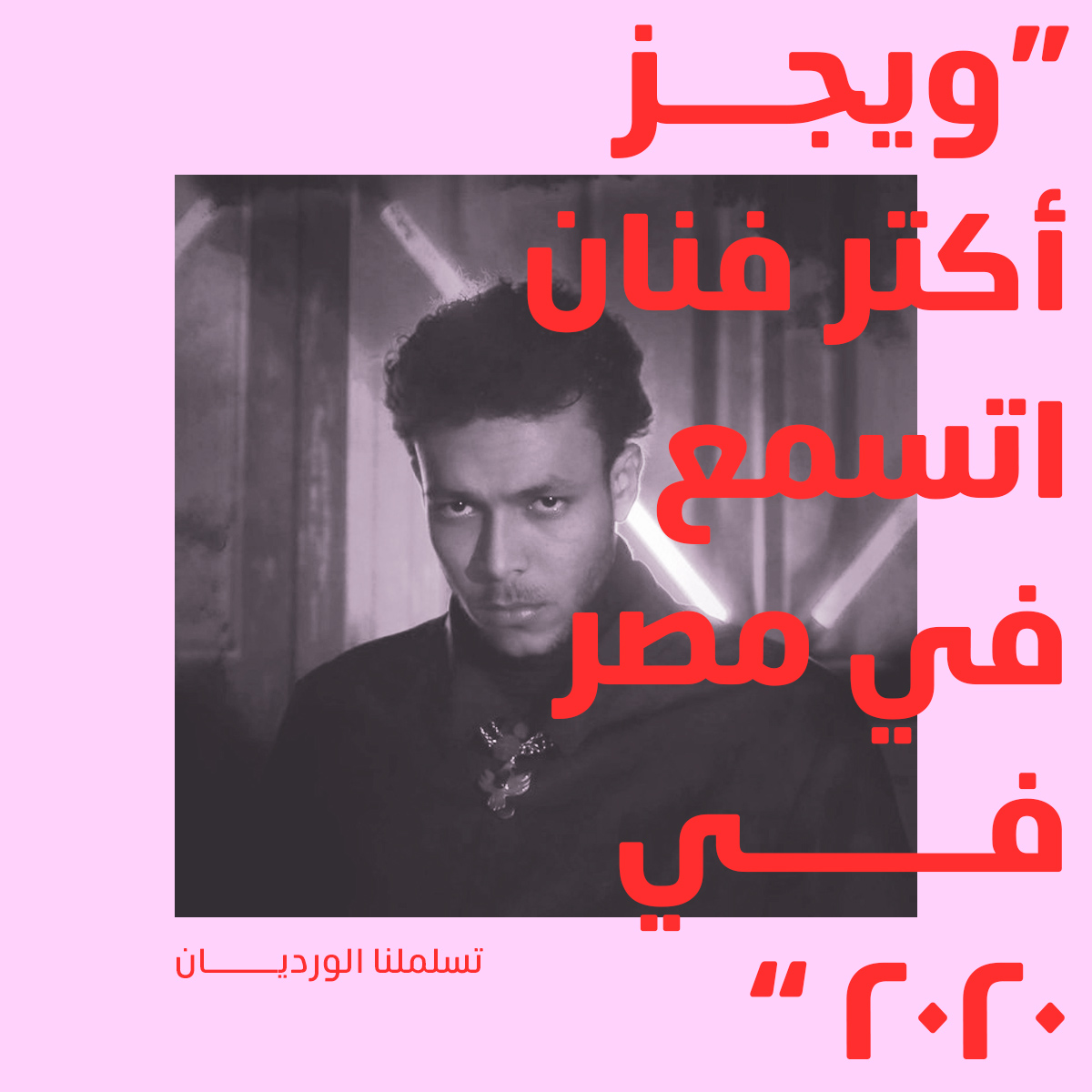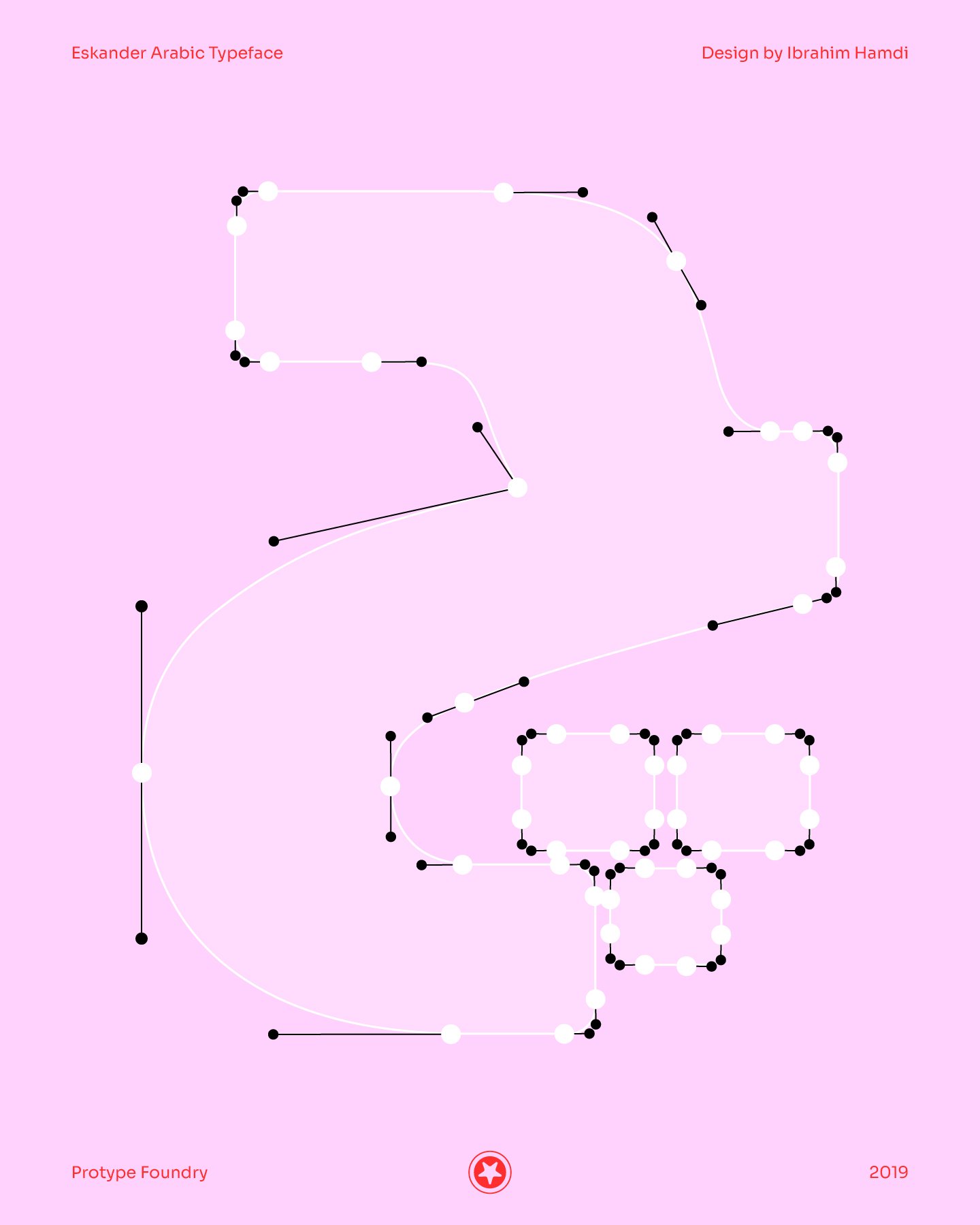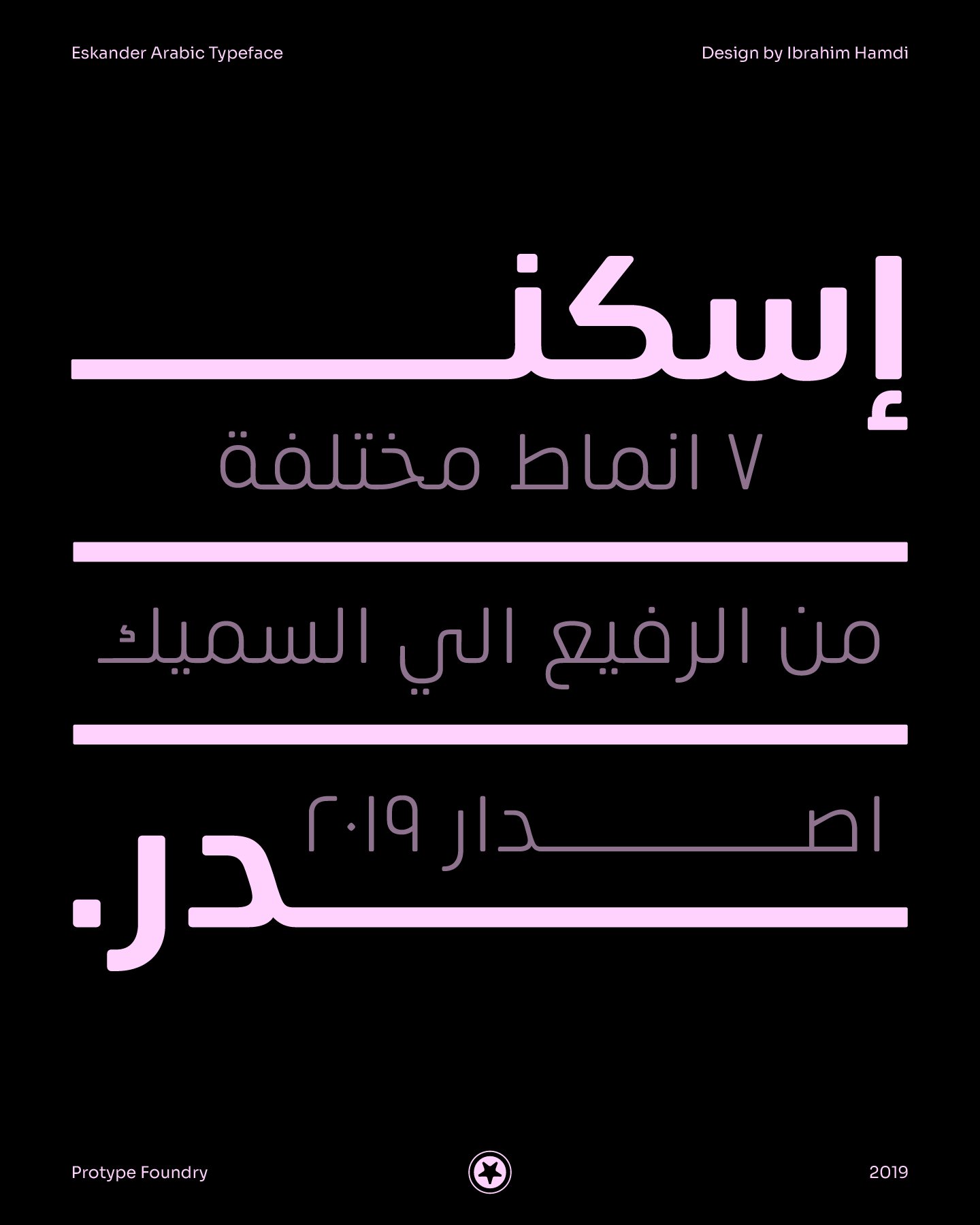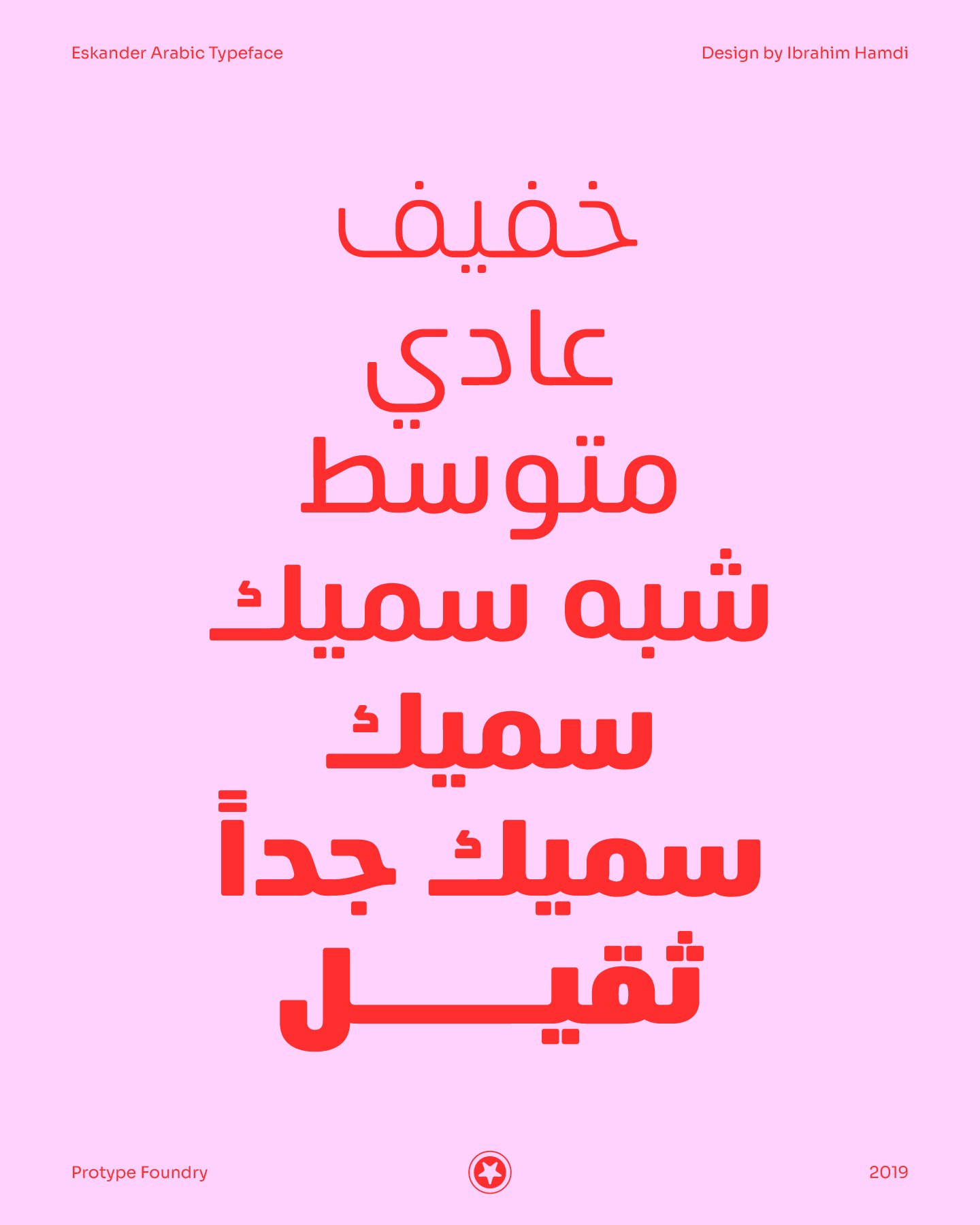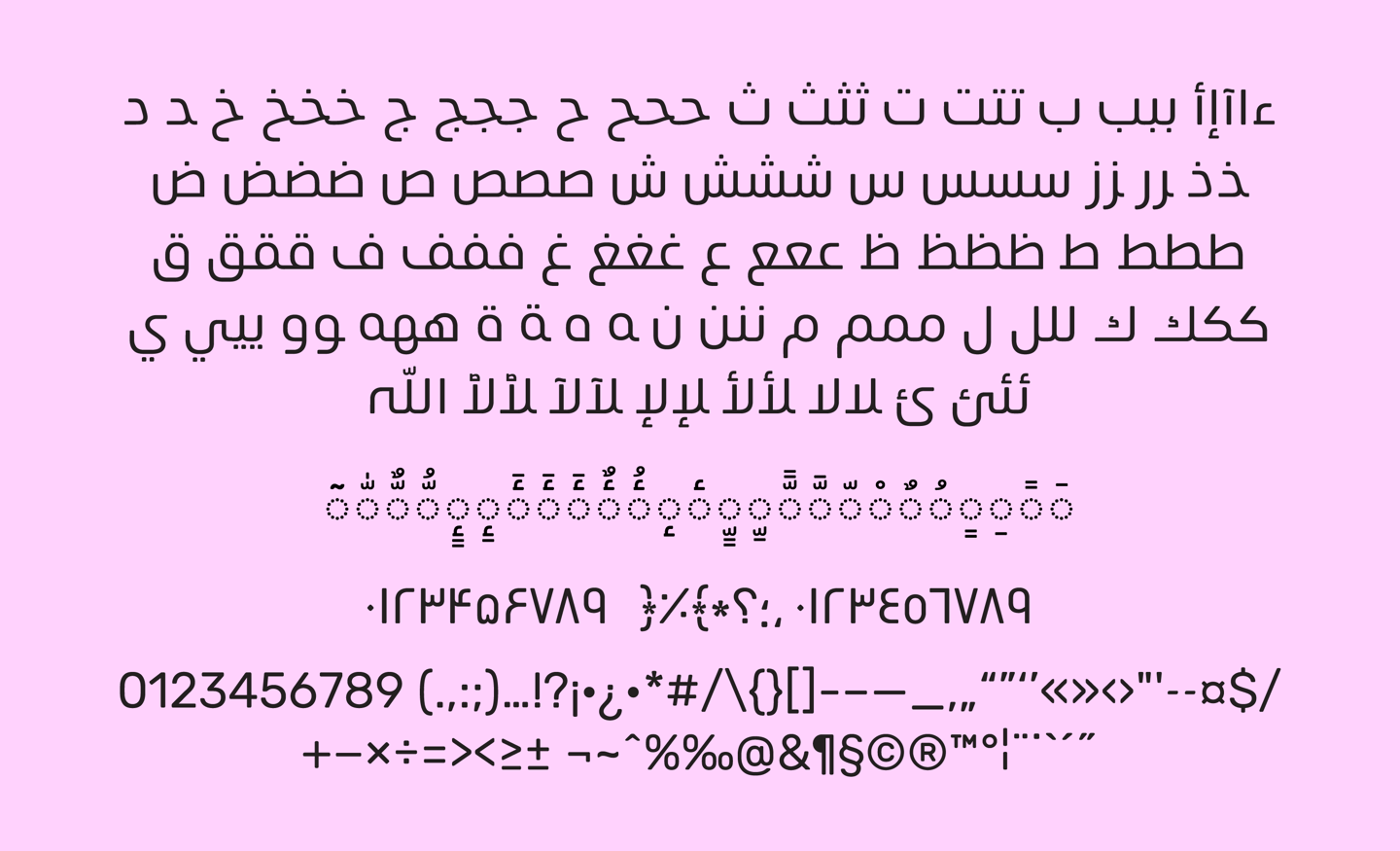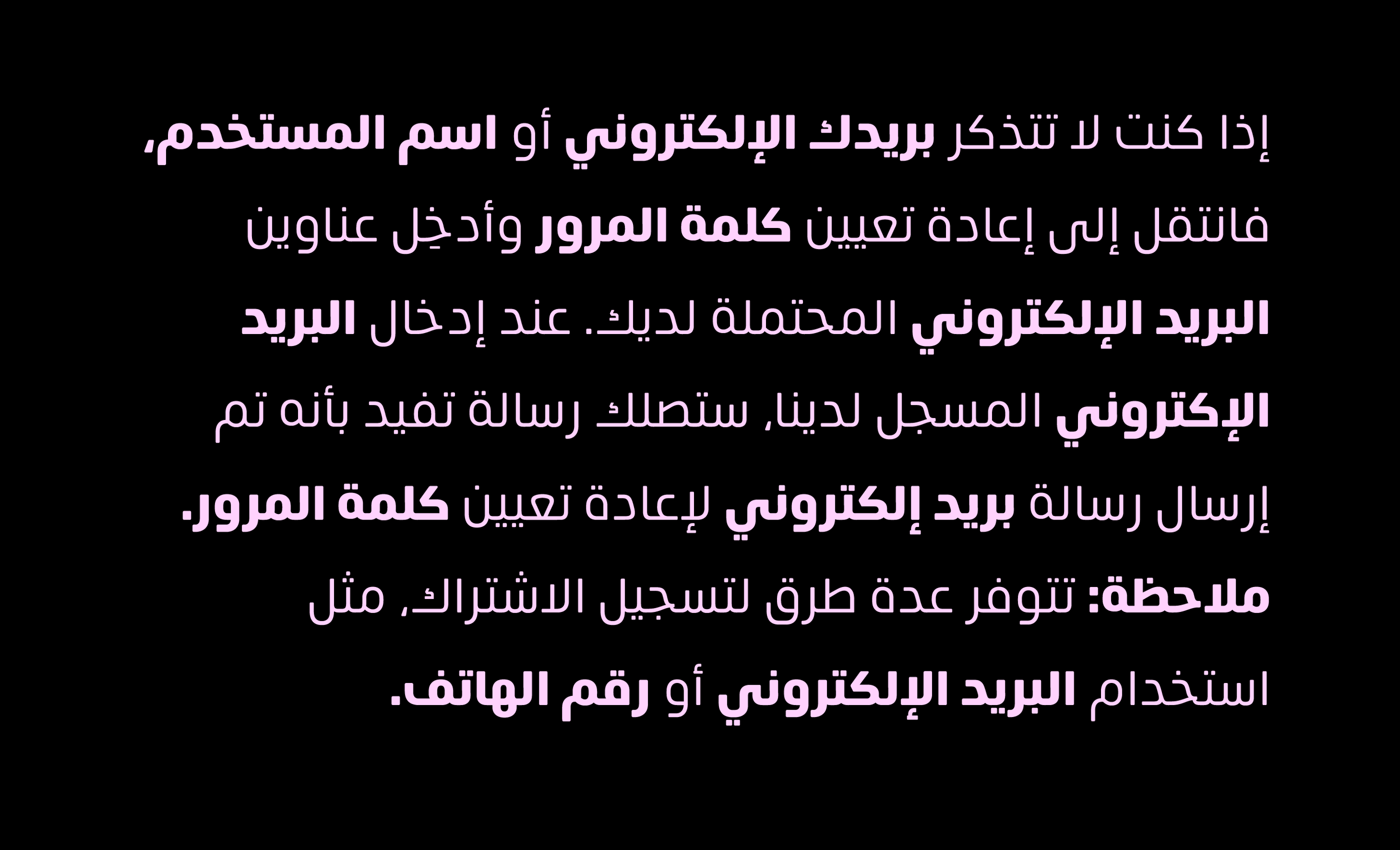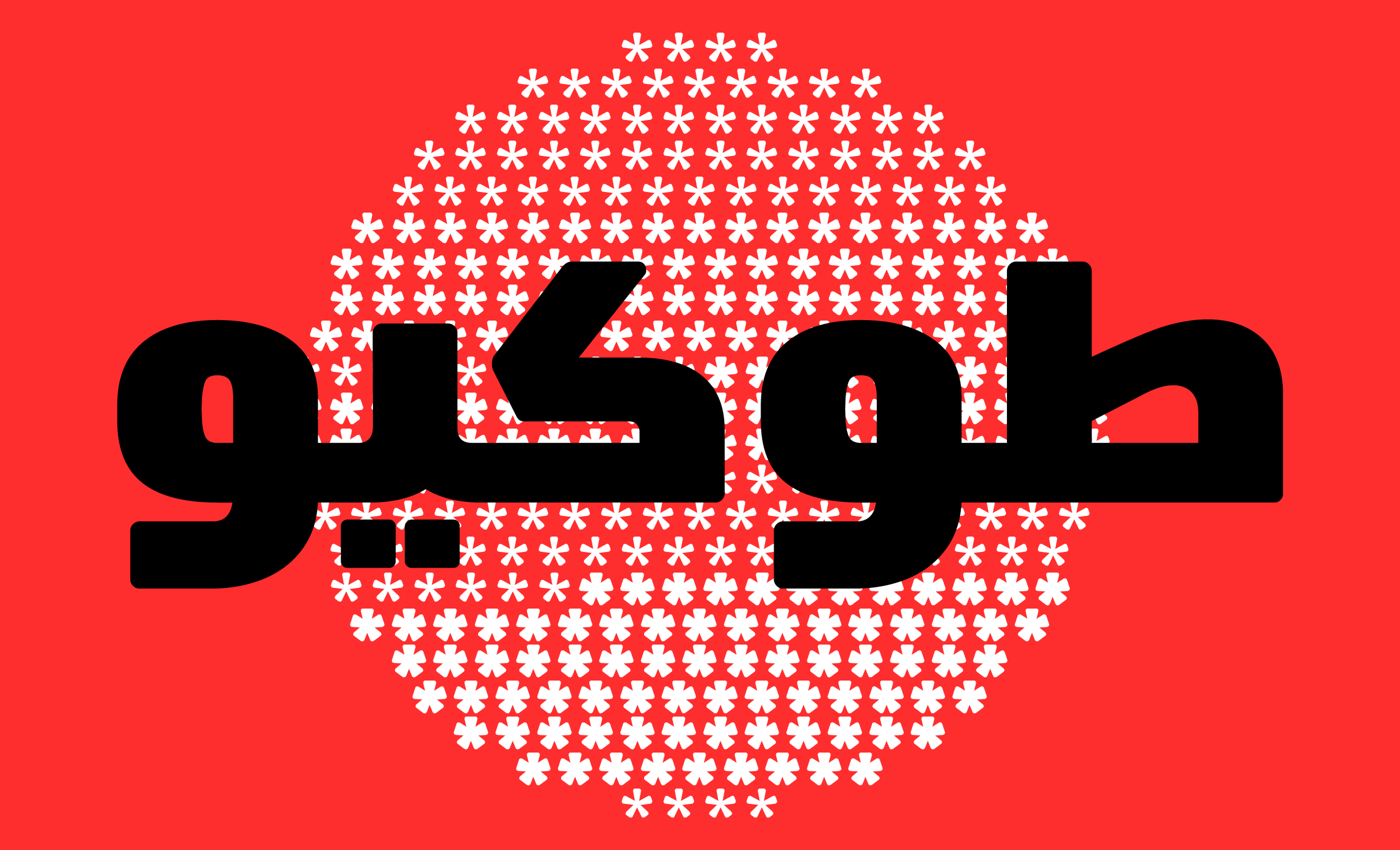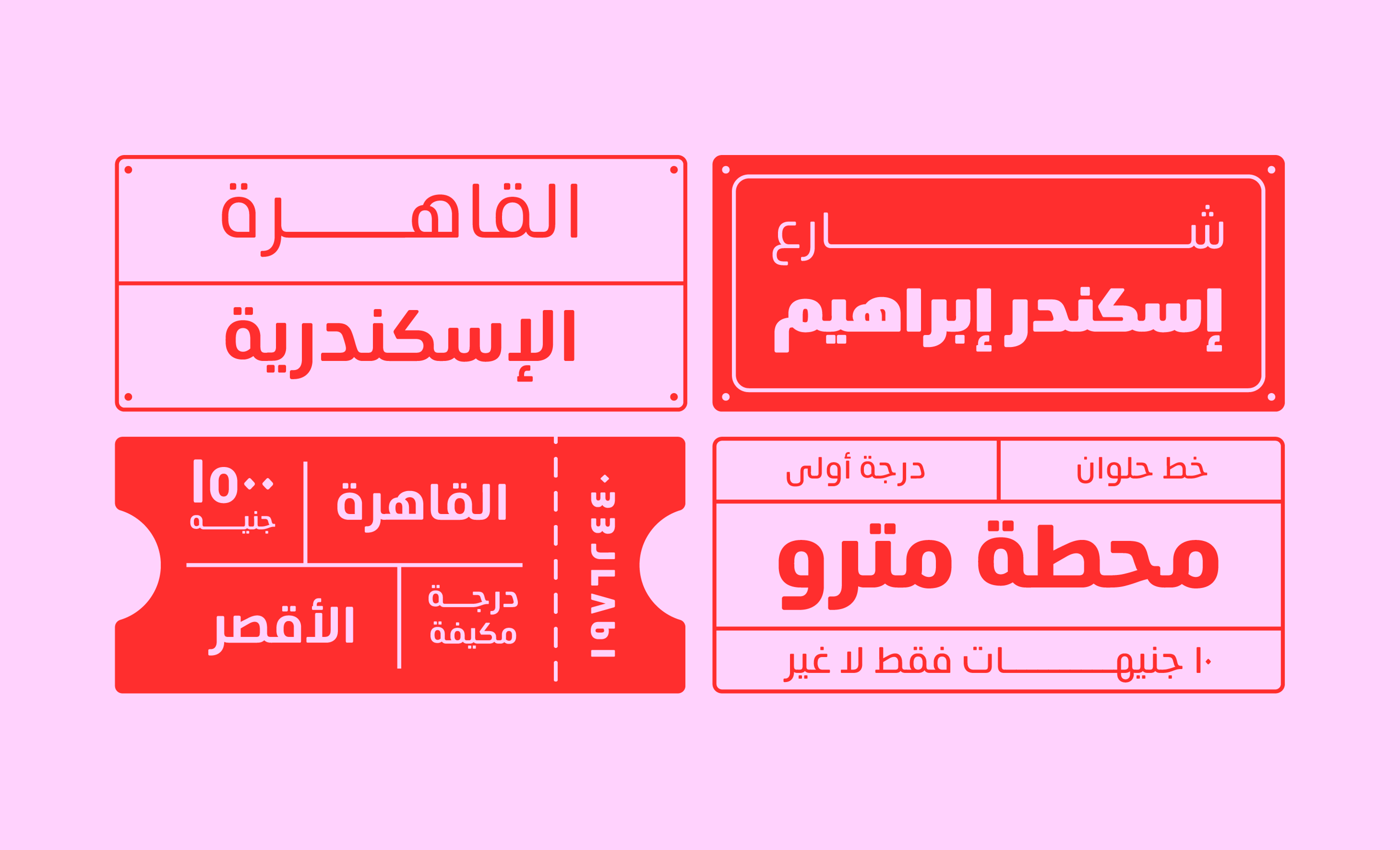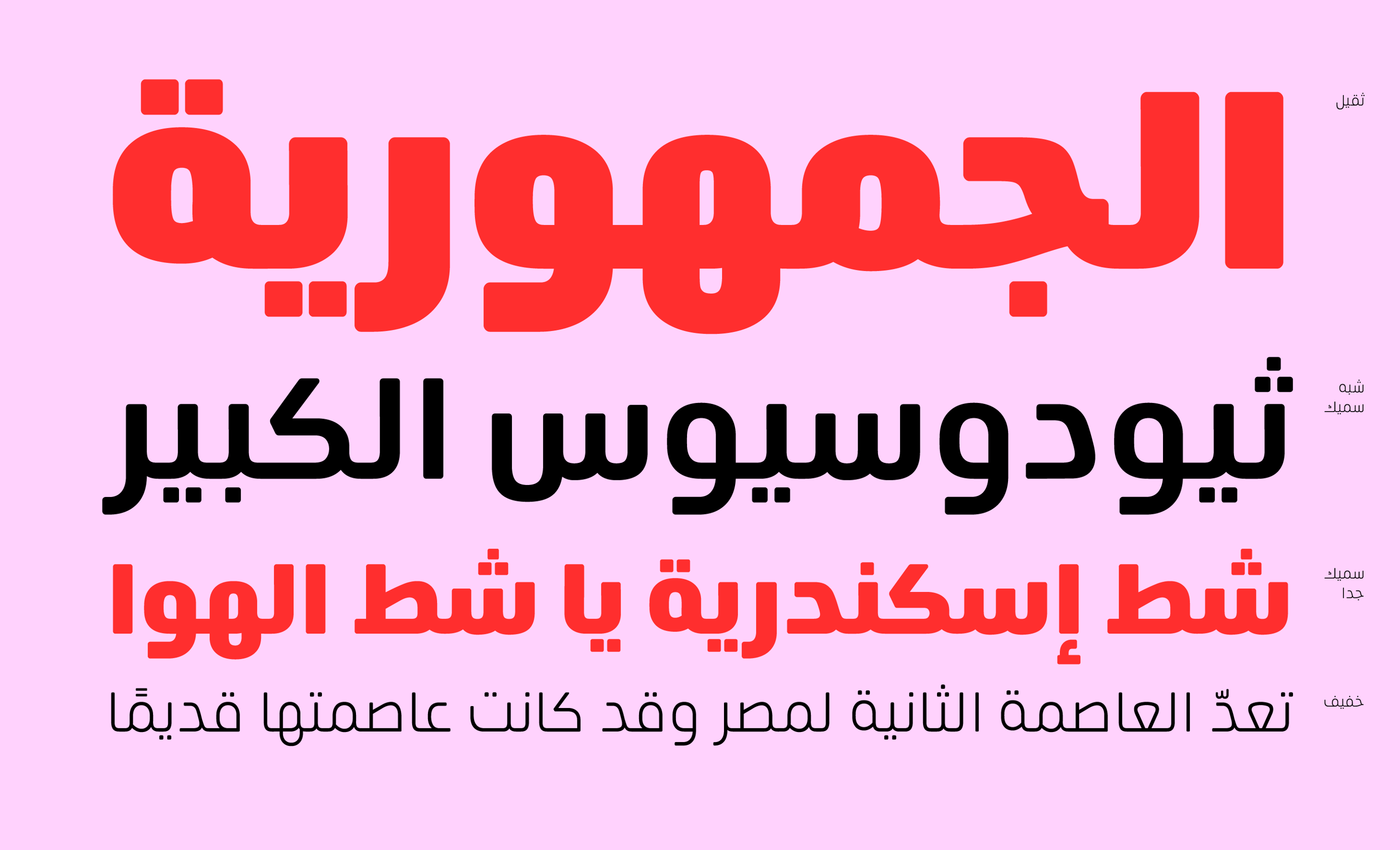
Eskander the first version designed at 2018, and re-designed at 2021. Eskander typeface family comprises 7 weights, ranging from Light to Heavy.
Eskander is Arabic typeface with rounded edges and friendly. For web, digital applications and prints, supported languages (Arabic, Persian and Urdu). Eskander is a trademark of Protype Foundry Ltd.
● Eskander
Release
2021
Weights
7 Weights (Light, Regular, Medium, Semi-Bold, Bold, Extra-Bold, Heavy)
Supported Languages
Arabic, Persian and Urdu